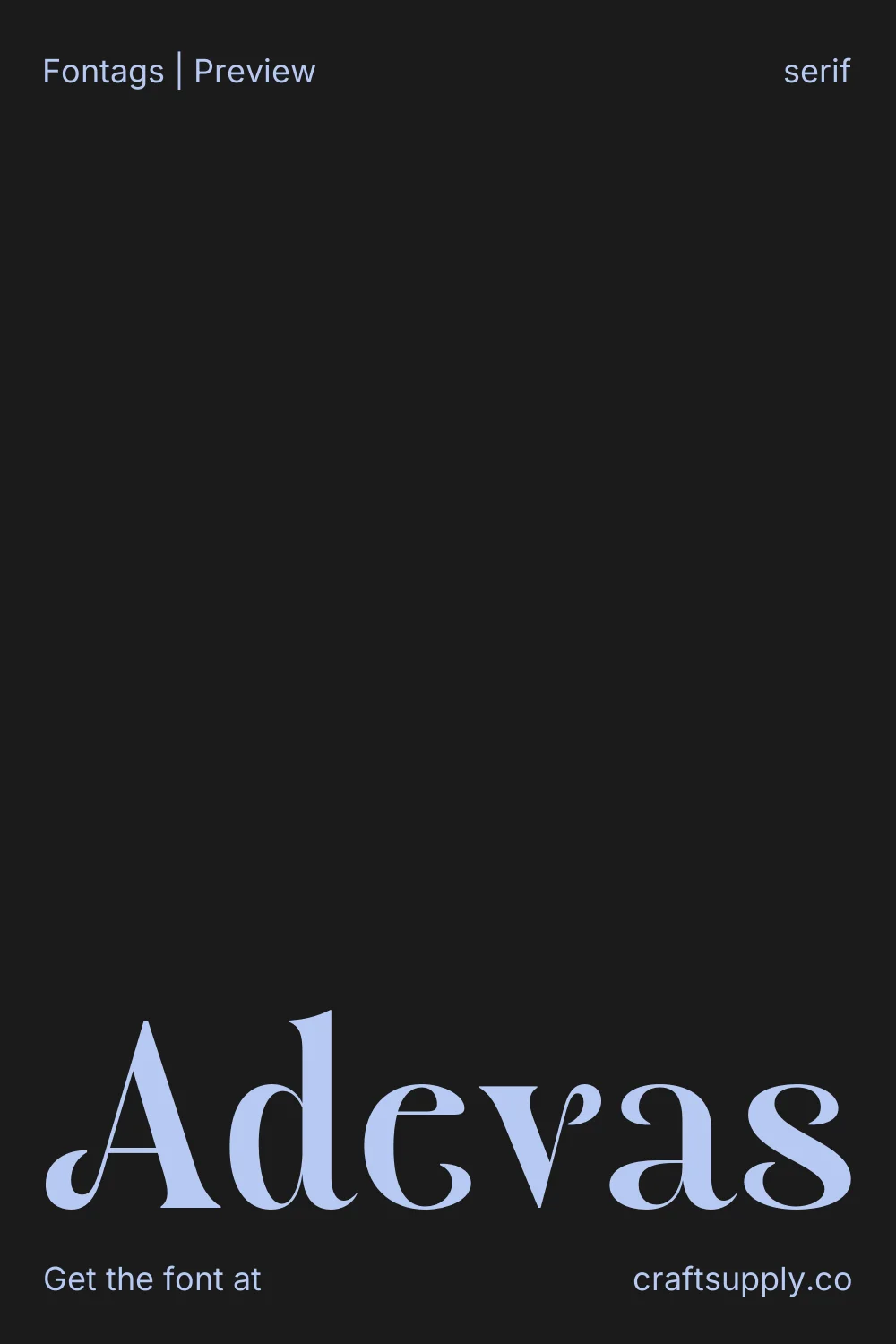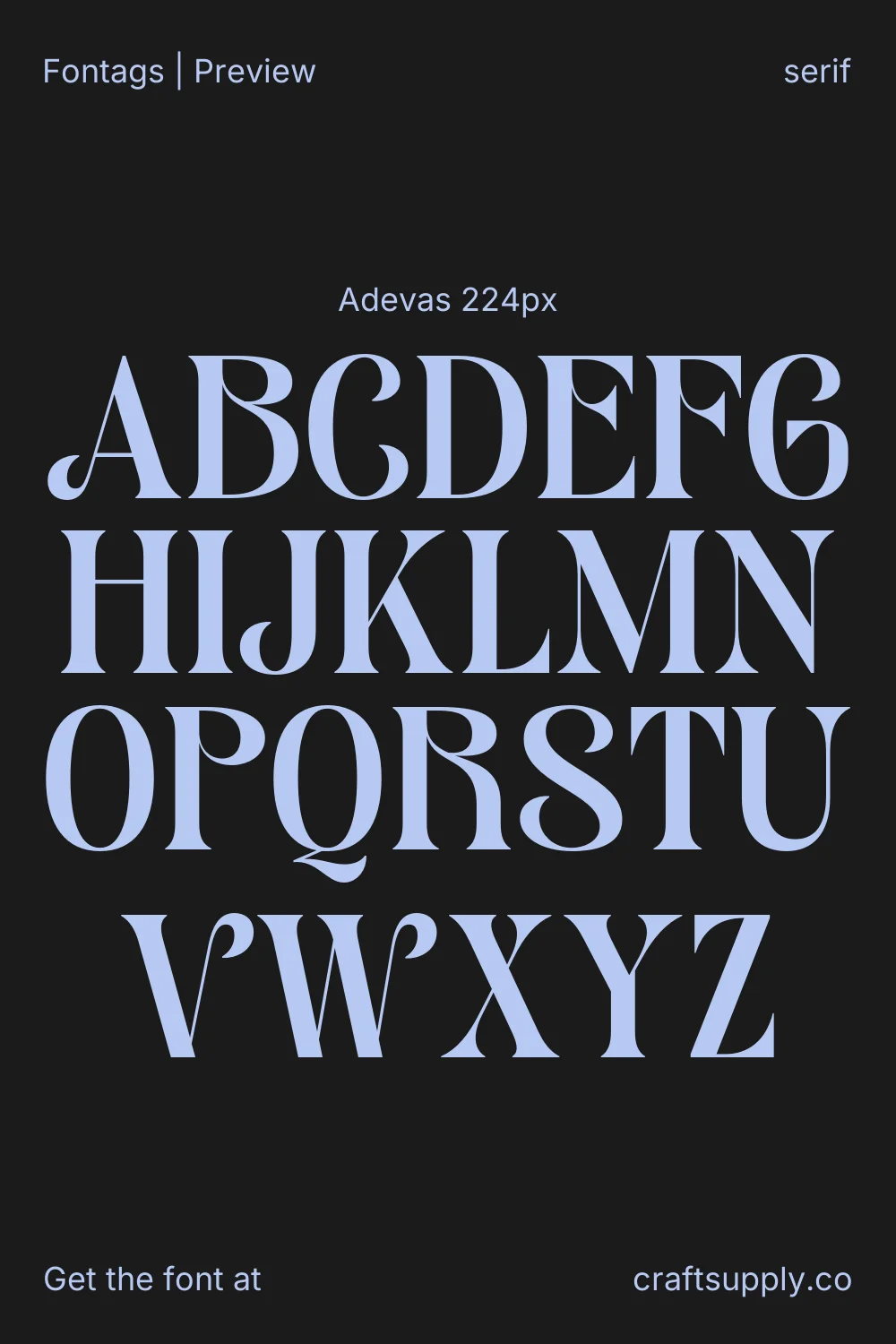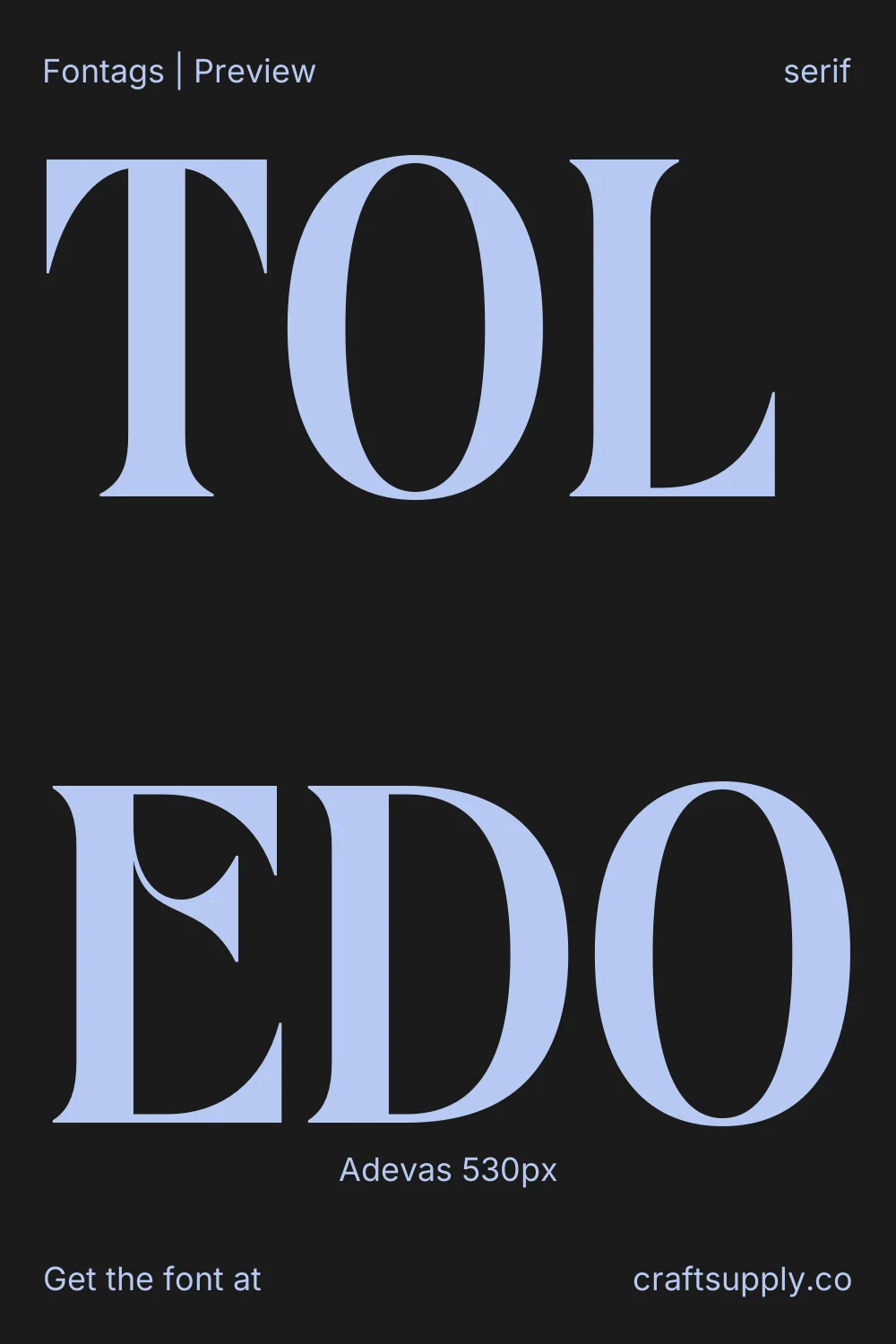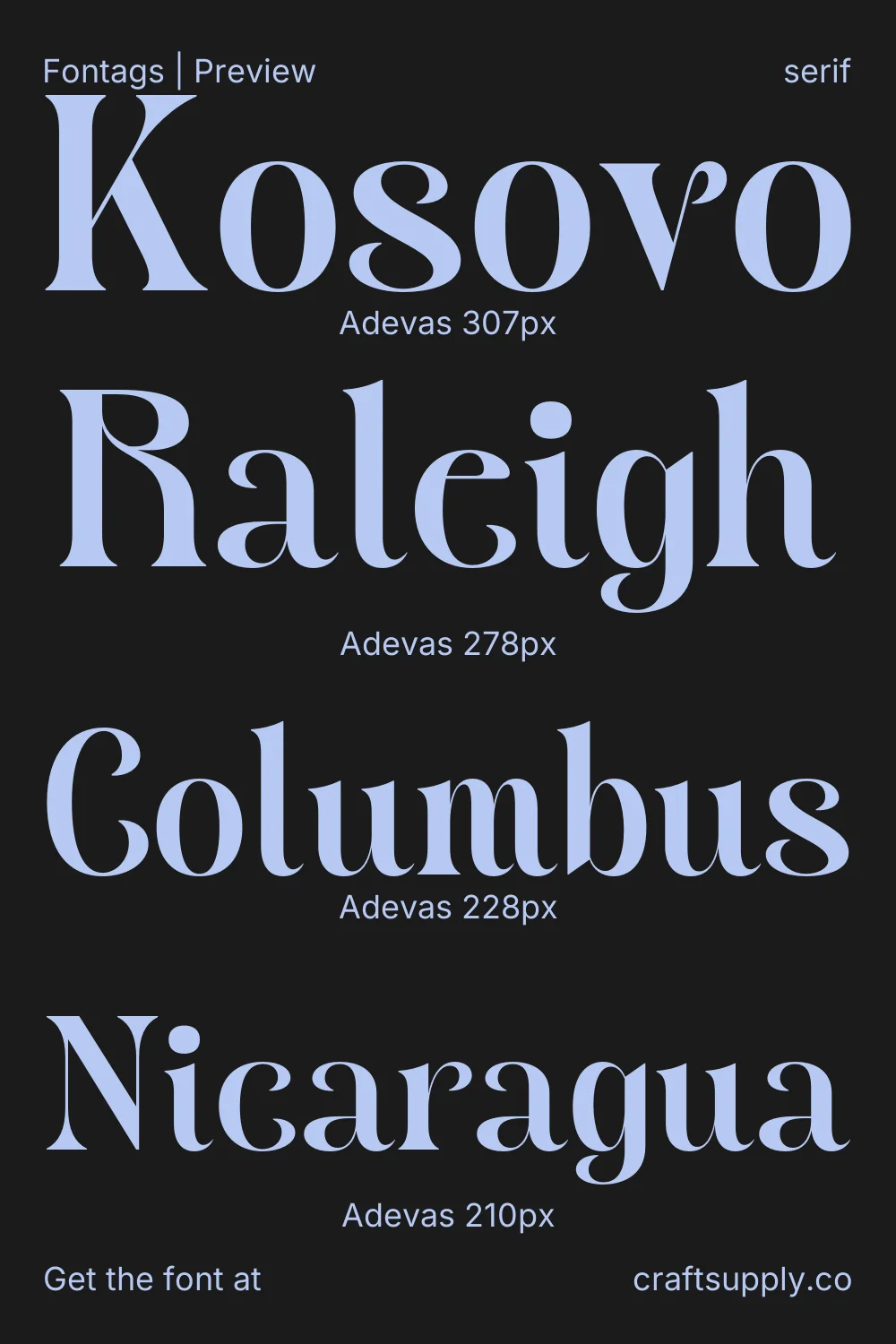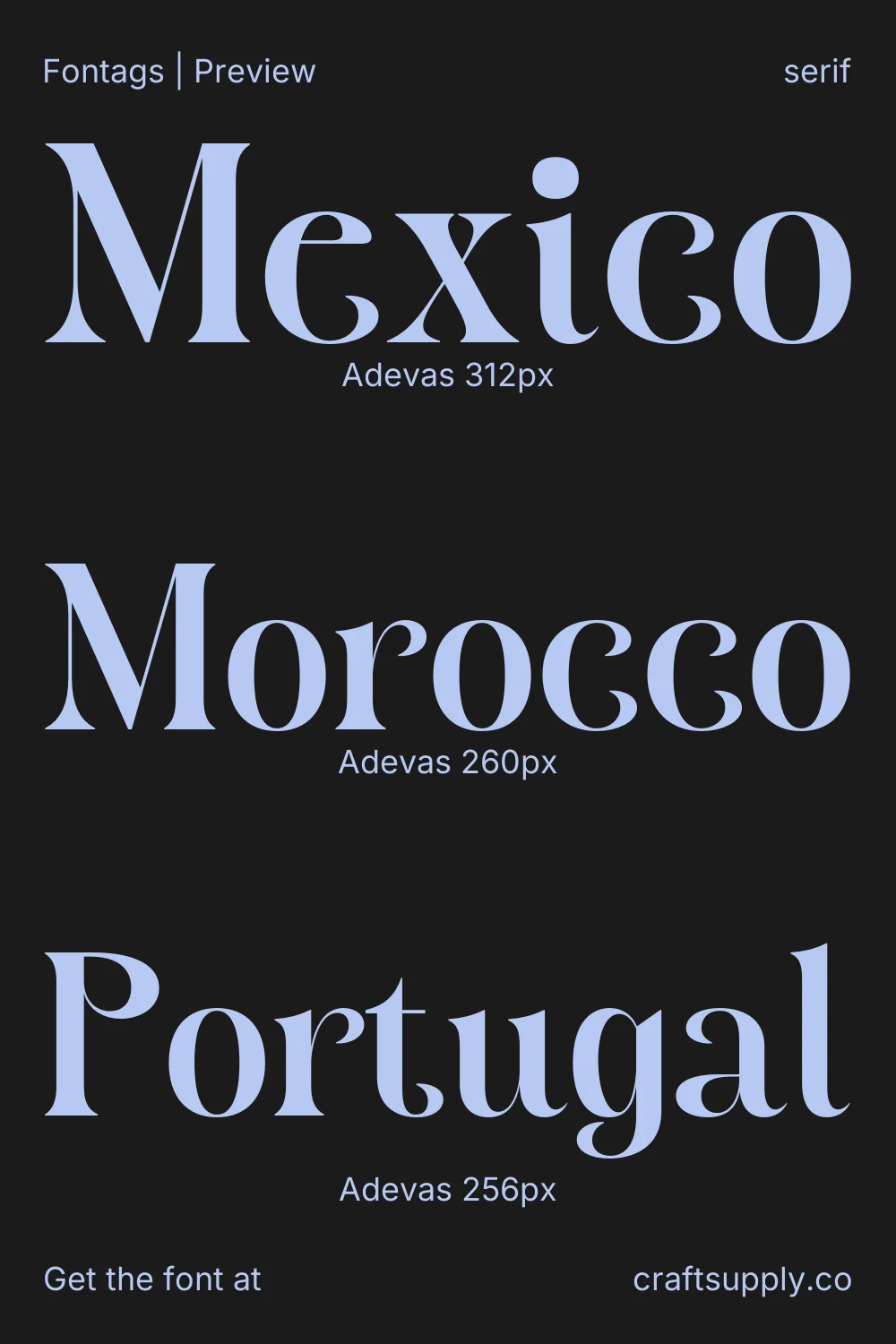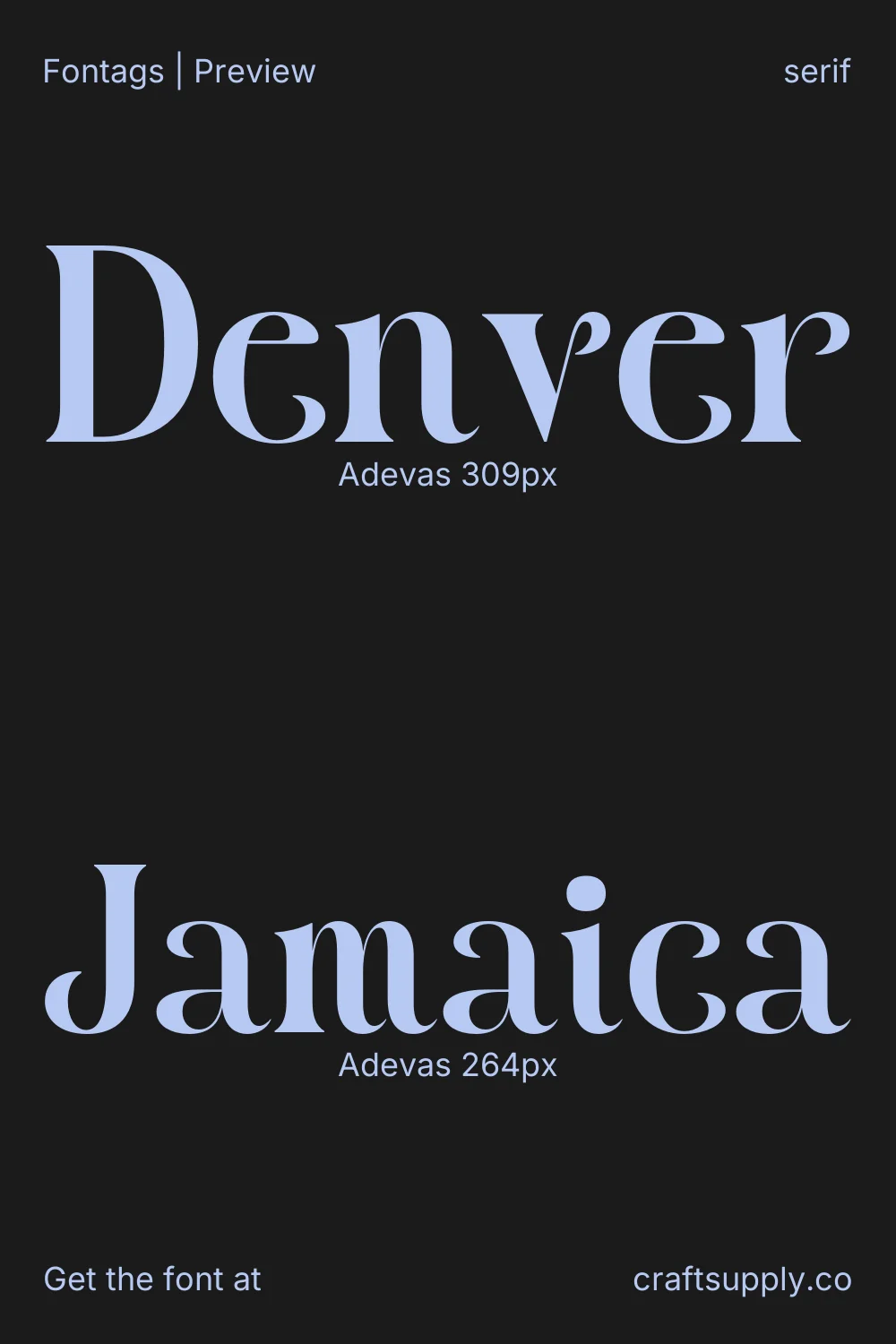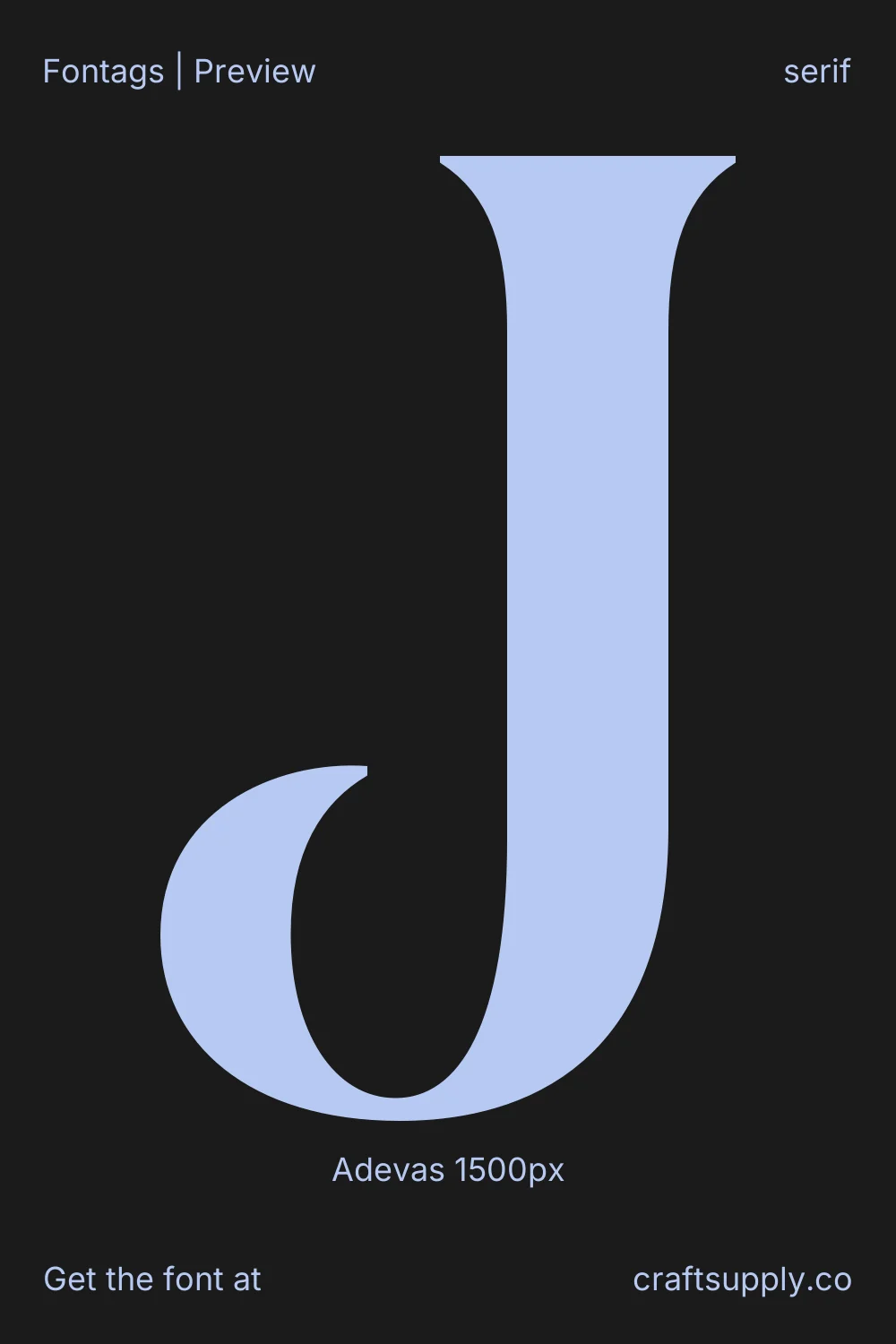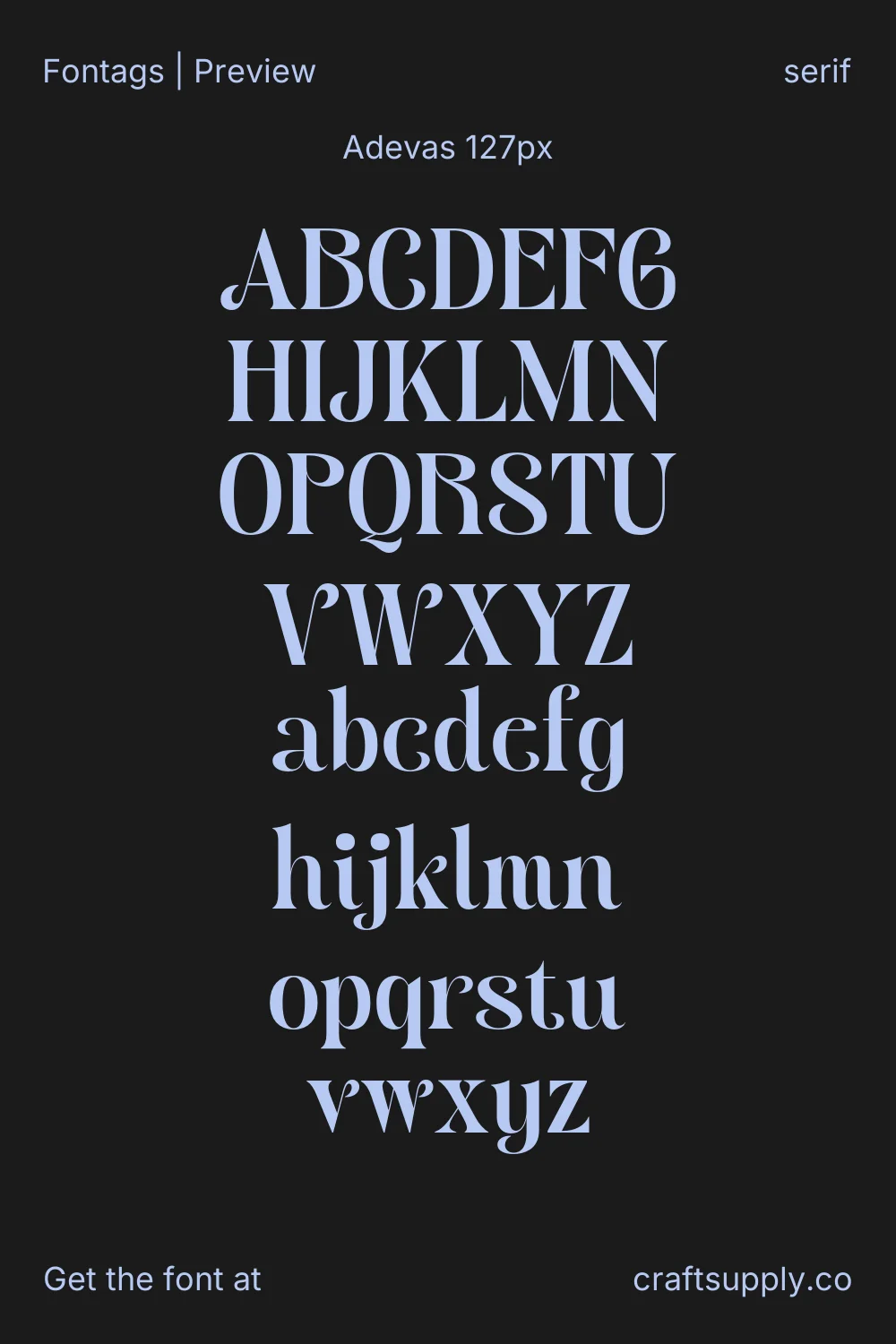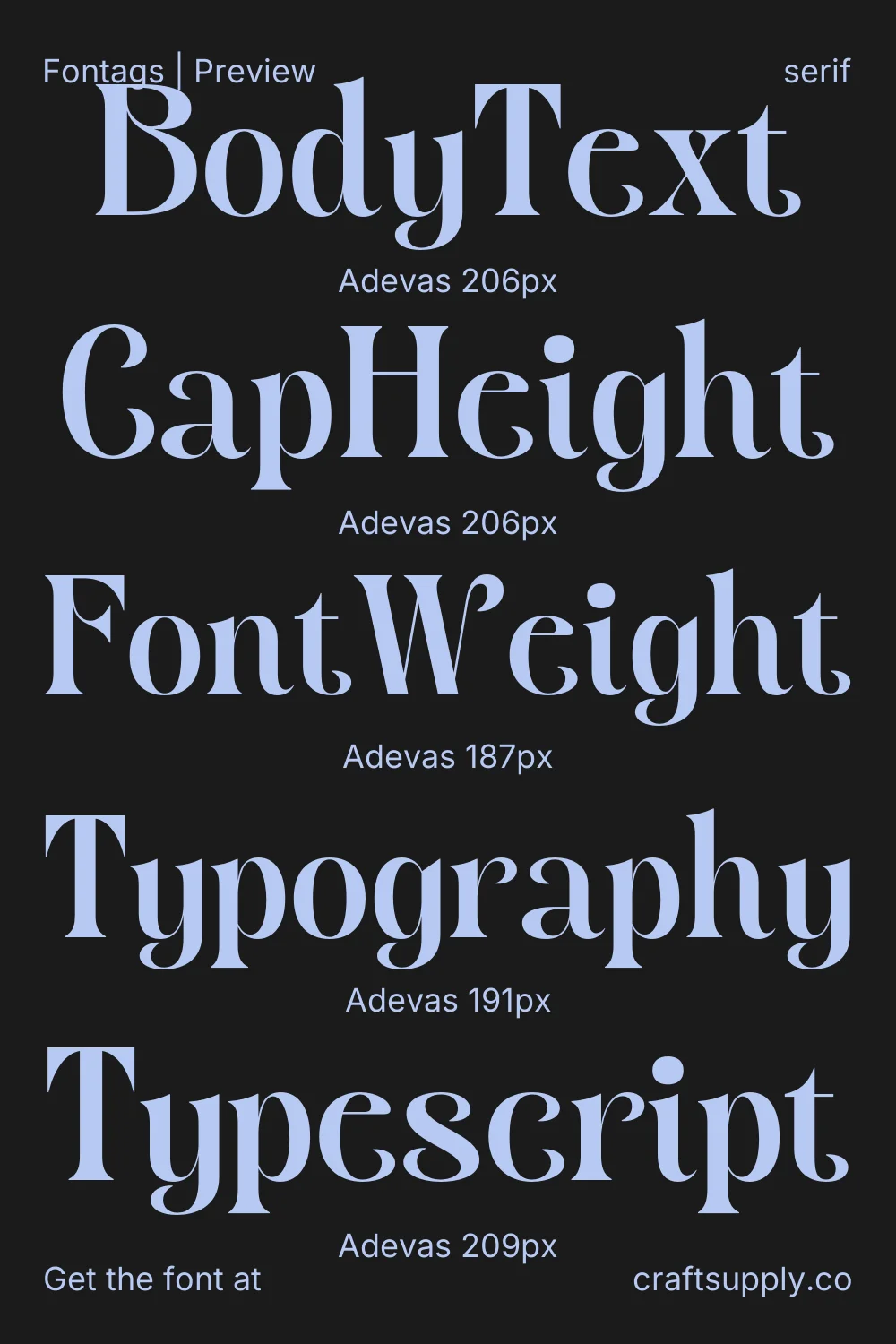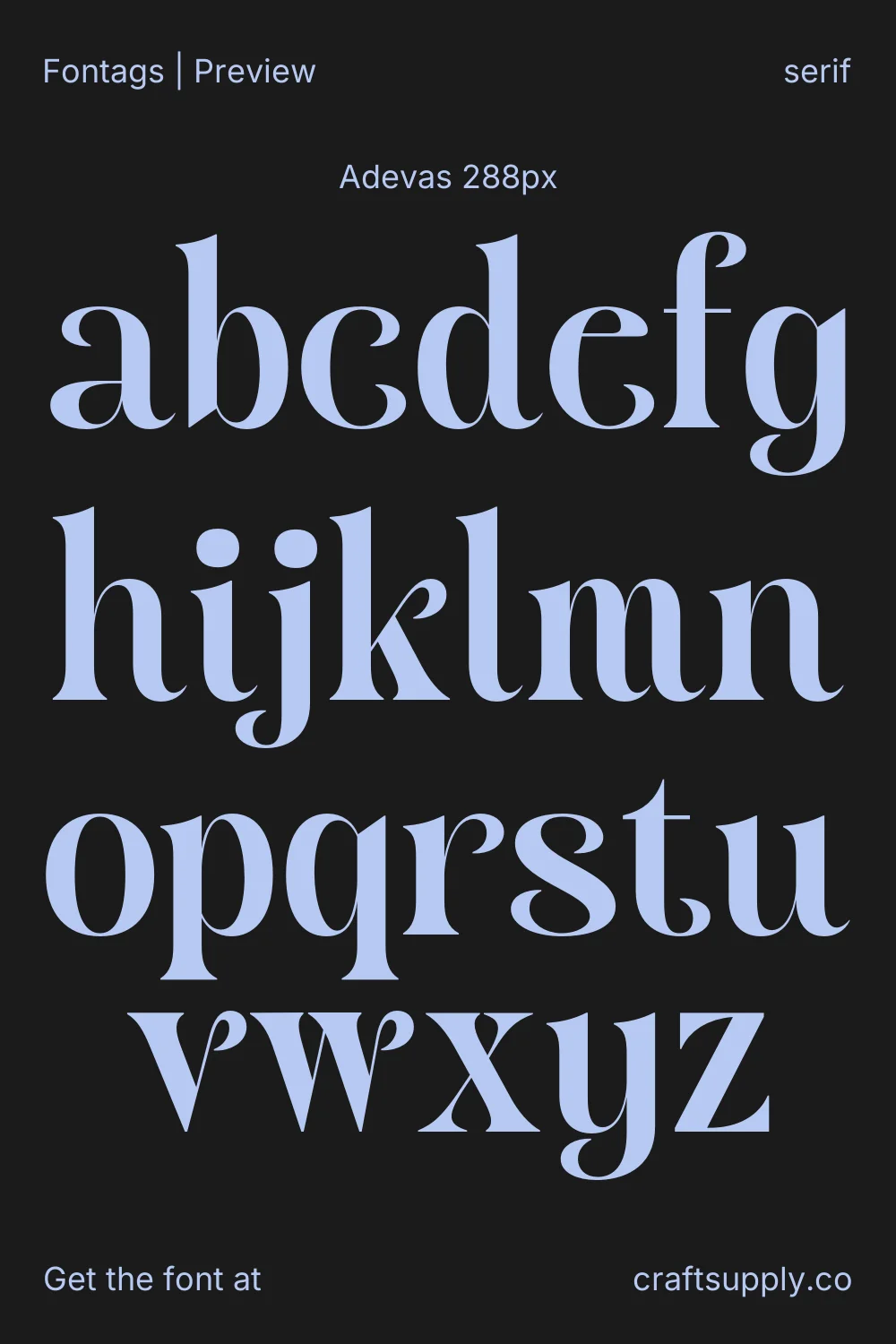
Adevas
Adevas is an elegant high-contrast serif font with striking strokes and refined details. It exudes sophistication and is perfect for headlines, titles, branding, and editorial layouts. This versatile typeface adds a touch of class to any project.